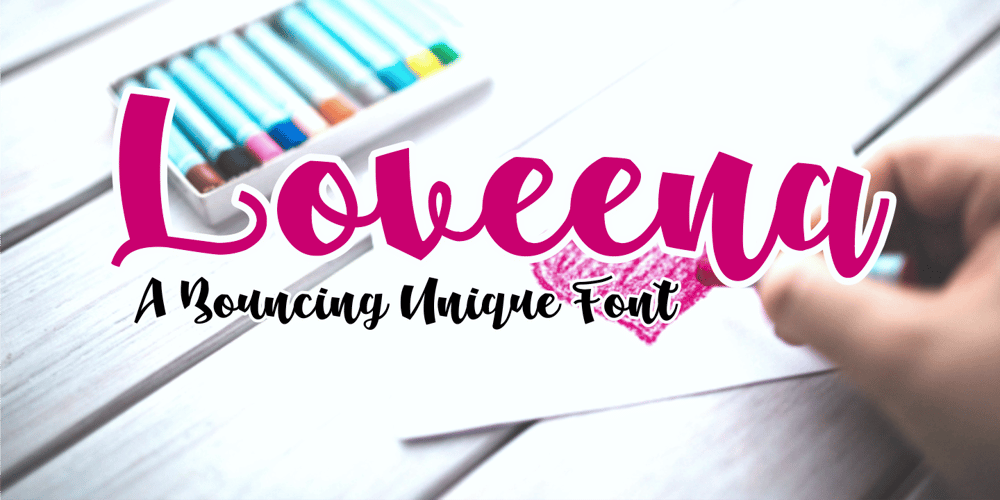
Loveena
Loveena font
Loveena Font Family was designed by Muhammad Nazarudin and published by Niznaztype. Loveena contains 1 styles and family package options. Loveena is a script typeface with modern bouncing style. It’s contemporary font for postmodern graphic designs. Loveena is perfect for poster, book’s cover design, branding, tagline of product, advertising, short text and postmodern designs.Loveena has characteristic of feminism, love, cuteness and friendship, and so this font also suitable for designs that have love and feminism theme.